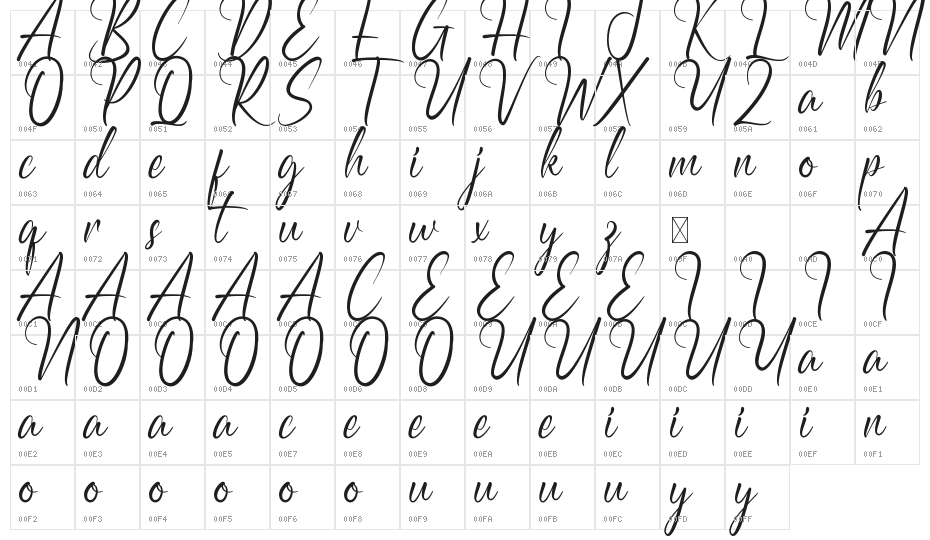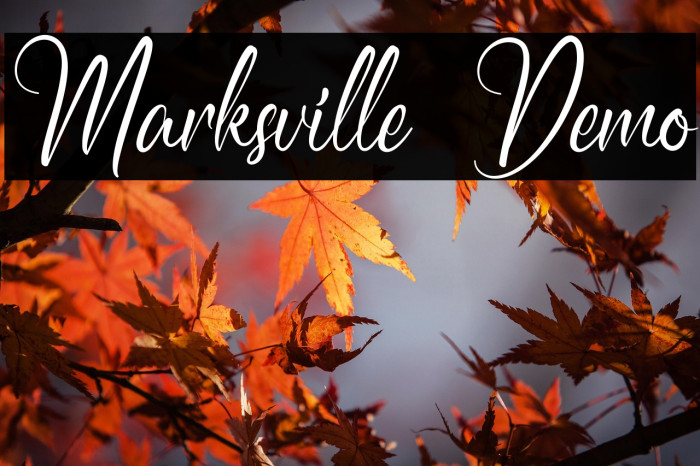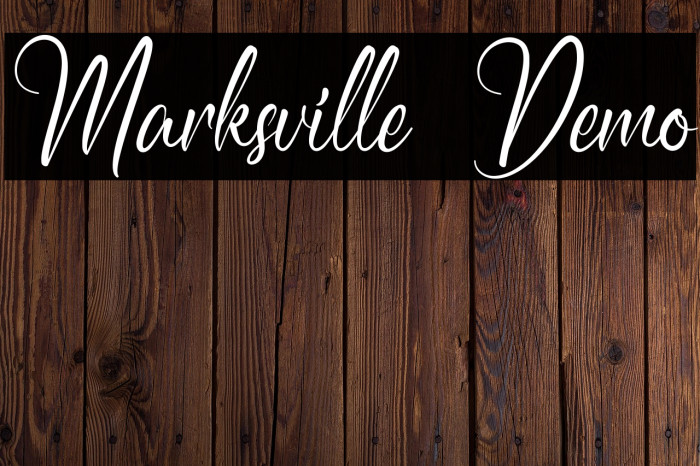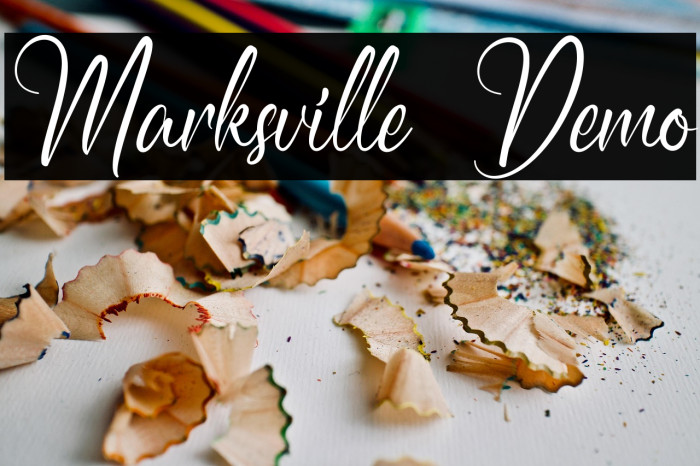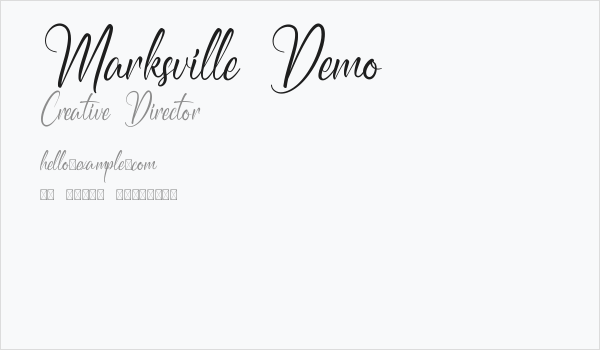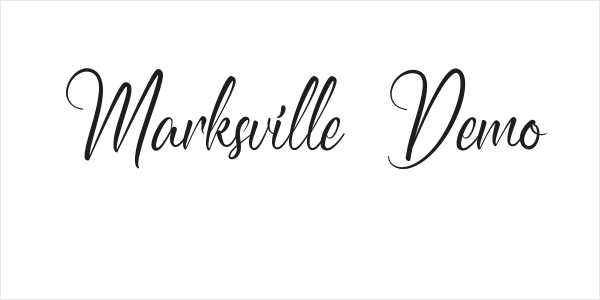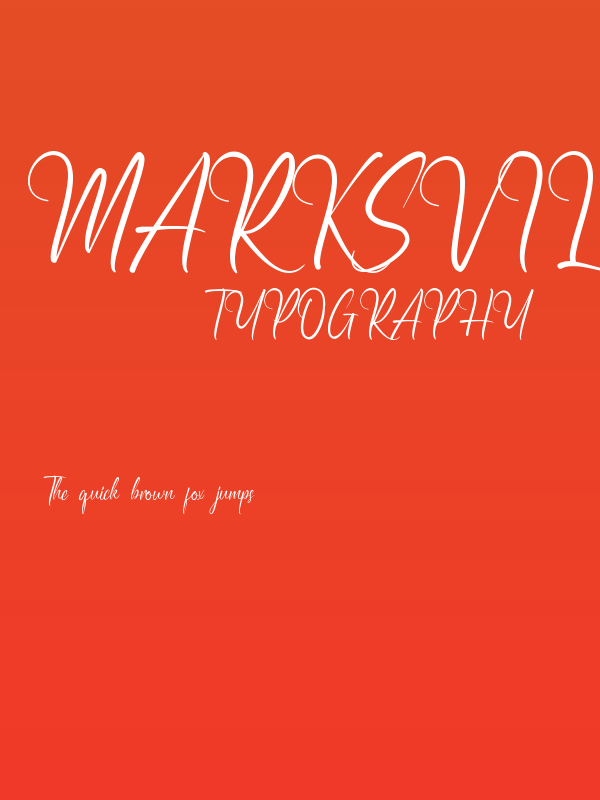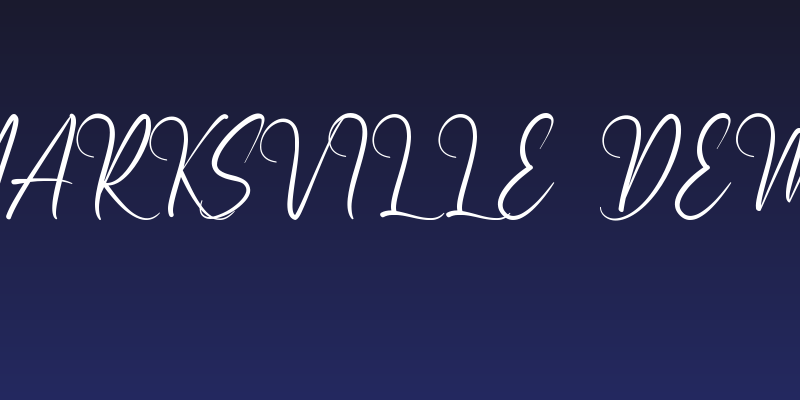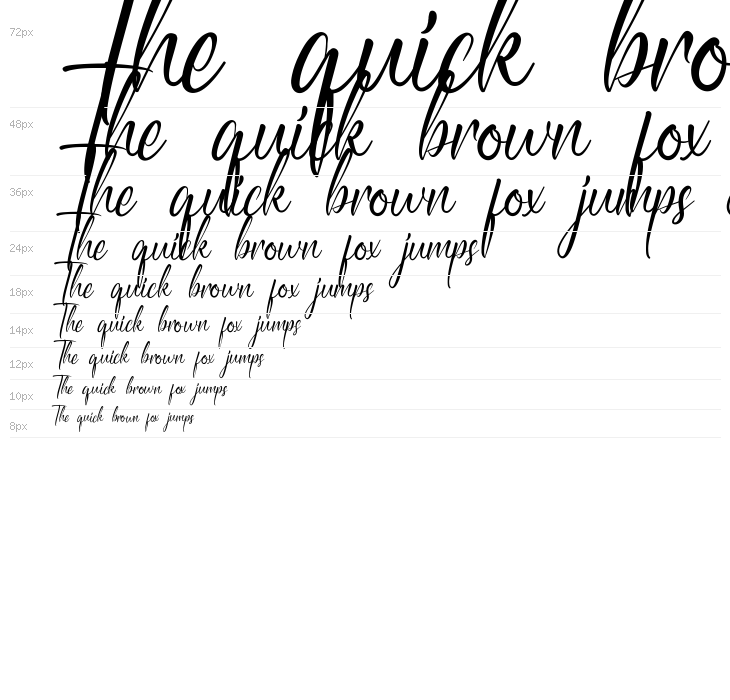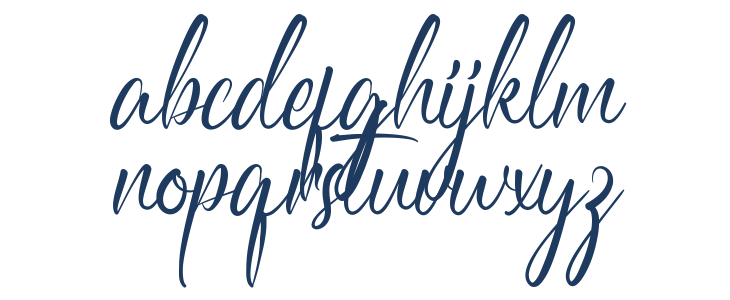
Marksville Demo Font
Marksville Demo Description
This font exudes elegance and fluidity, characterized by its cursive script style. The letters are interconnected with smooth, flowing lines that give it a handwritten appearance. The uppercase letters are tall and graceful, while the lowercase letters maintain a consistent slant, enhancing the overall harmony of the text. The strokes vary in thickness, adding a dynamic quality to the font. It is both sophisticated and approachable, making it suitable for a variety of creative applications. The font's design is reminiscent of classic calligraphy, yet it maintains a modern touch, making it versatile for contemporary use.
| Proposed Projects | Ideal for wedding invitations, greeting cards, branding, and elegant logo designs. |